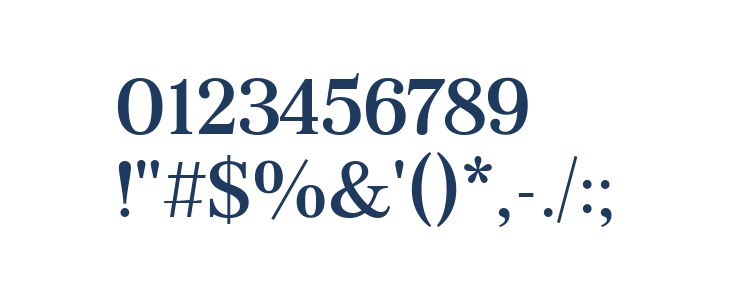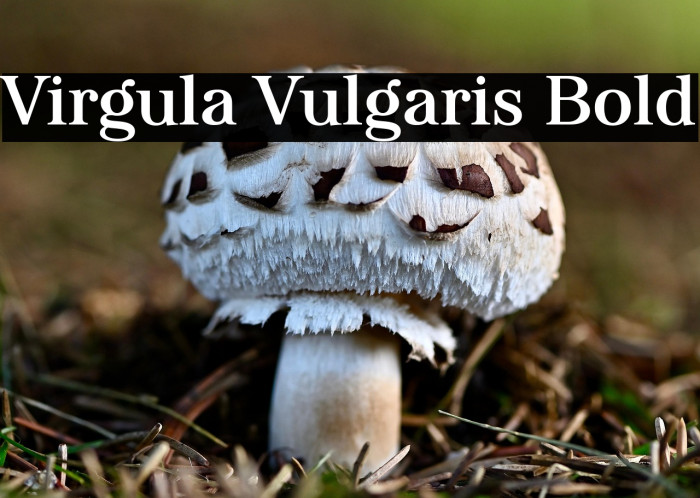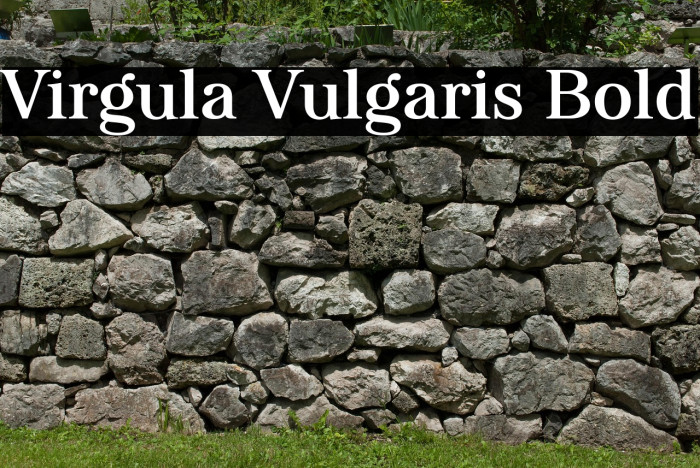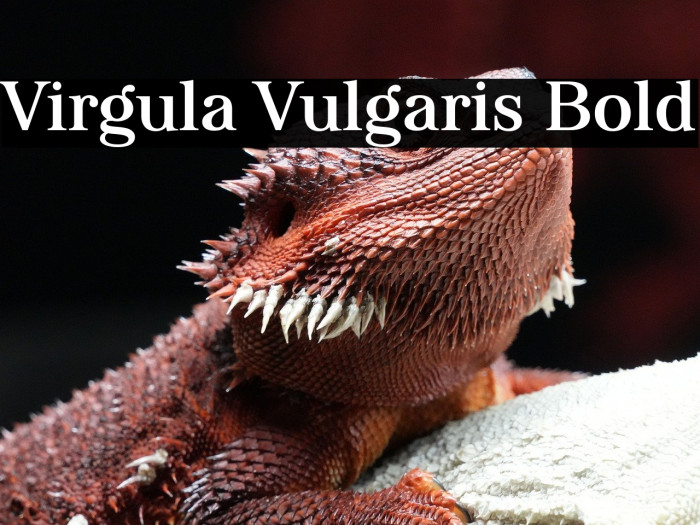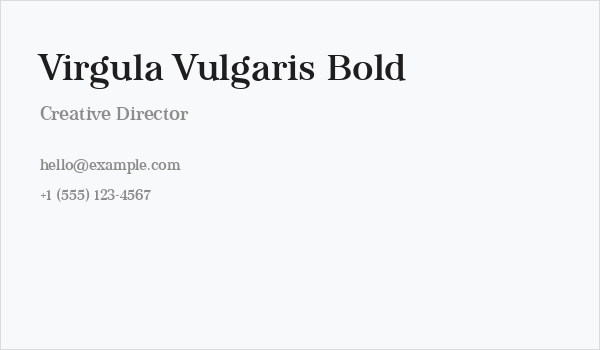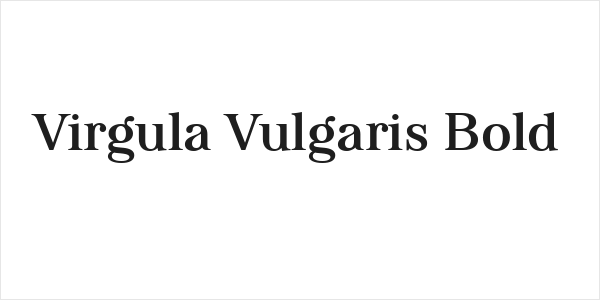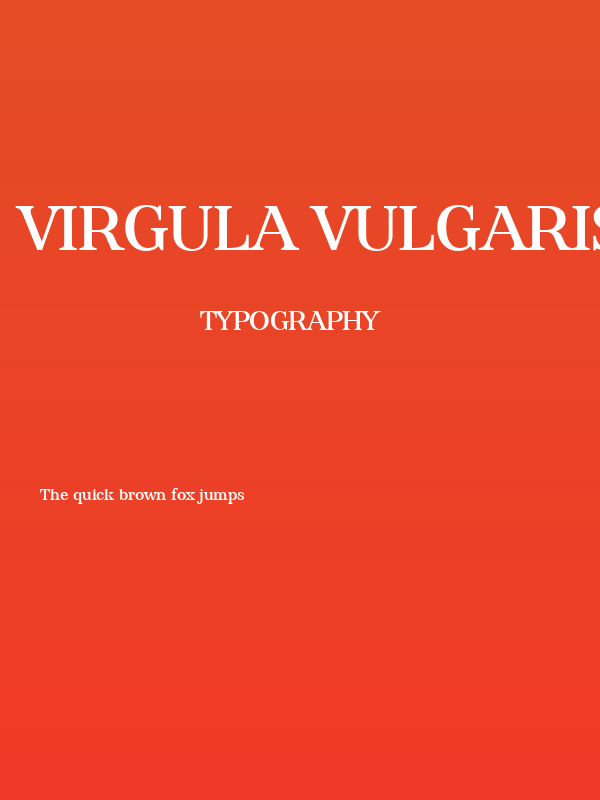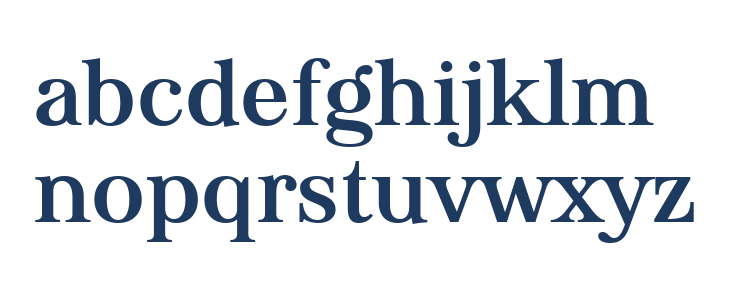
Virgula Vulgaris Bold Font
Virgula Vulgaris Bold Description
This font features a bold and classic serif style, characterized by its strong and pronounced serifs that give it a traditional and authoritative appearance. The uppercase letters are tall and commanding, while the lowercase letters maintain a consistent and harmonious flow. The numbers are robust and clear, ensuring readability. Special characters are well-defined, adding to the font's versatility. The overall design is balanced, making it suitable for both formal and creative applications.
| Proposed Projects | Ideal for book covers, editorial headlines, branding materials, and formal invitations. |